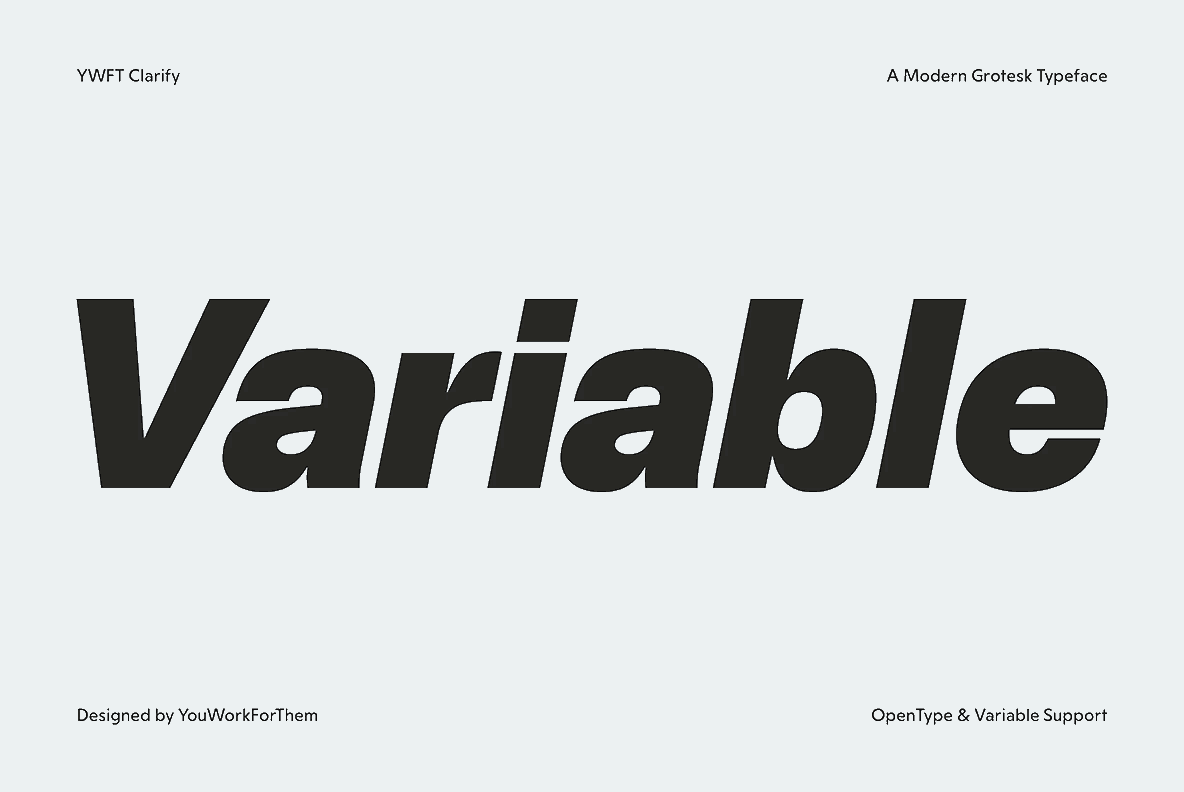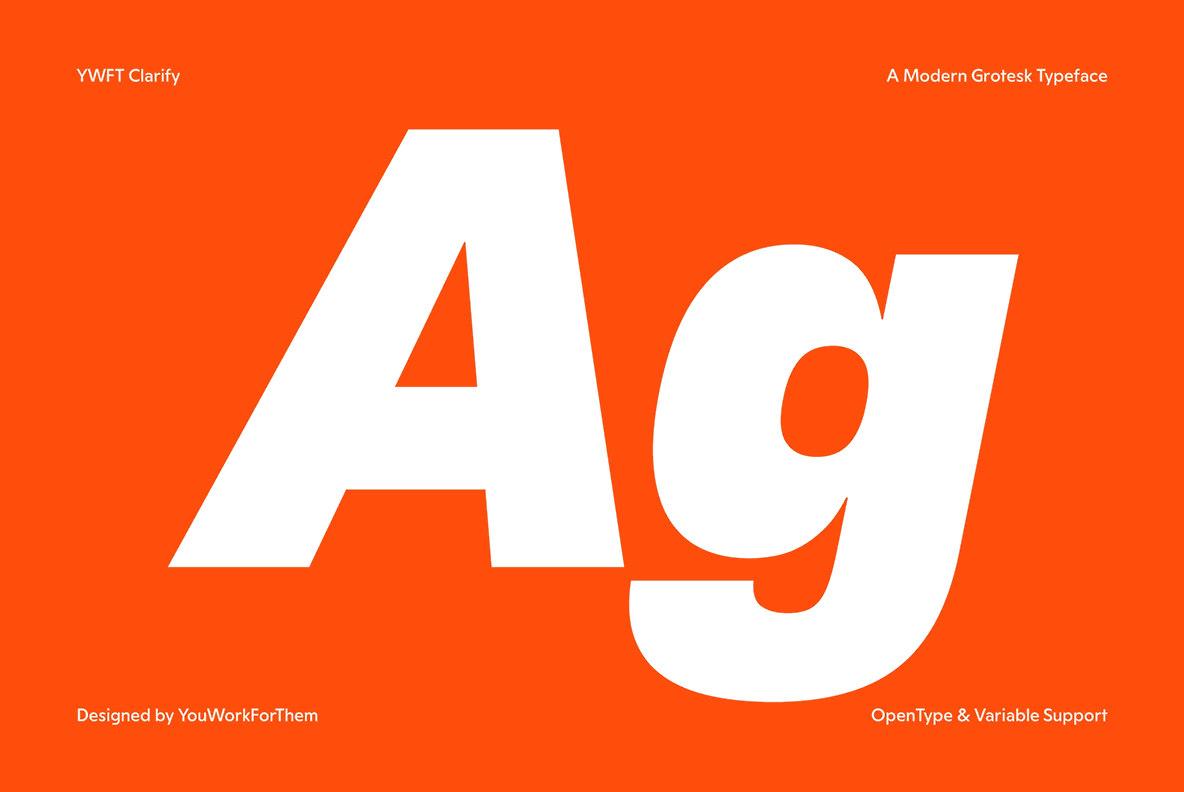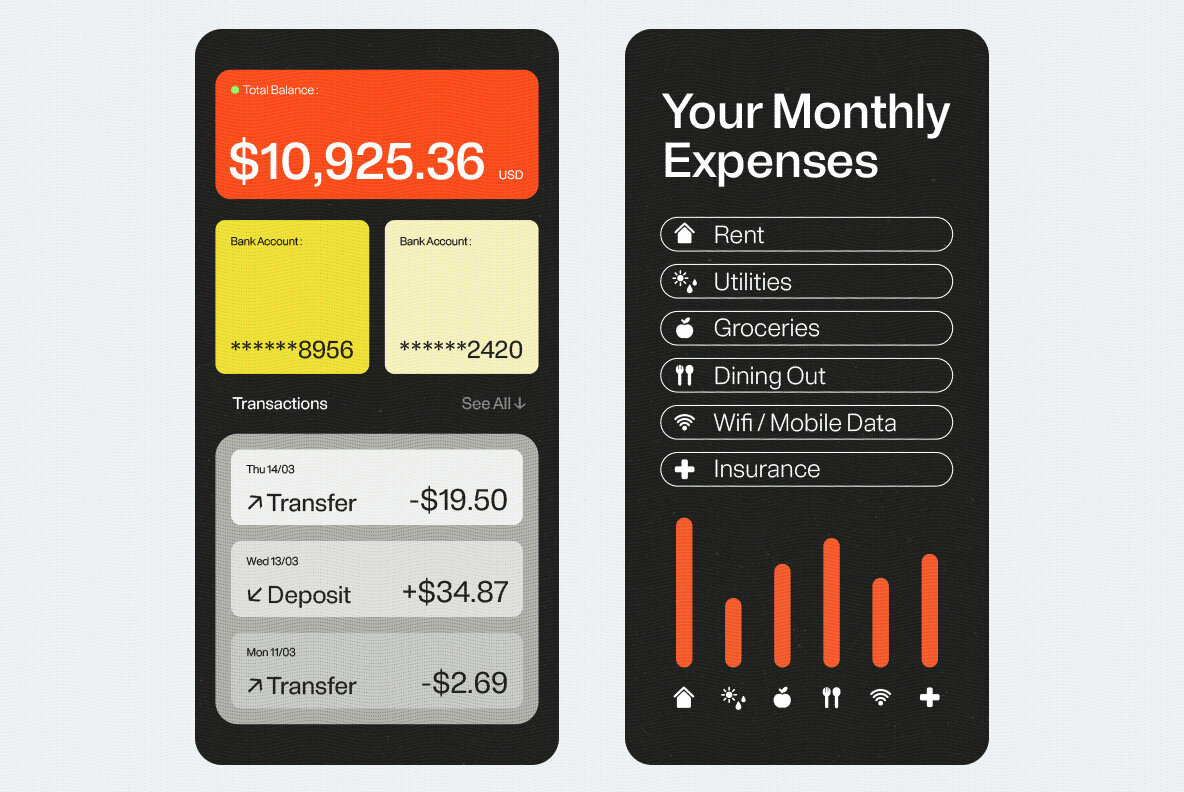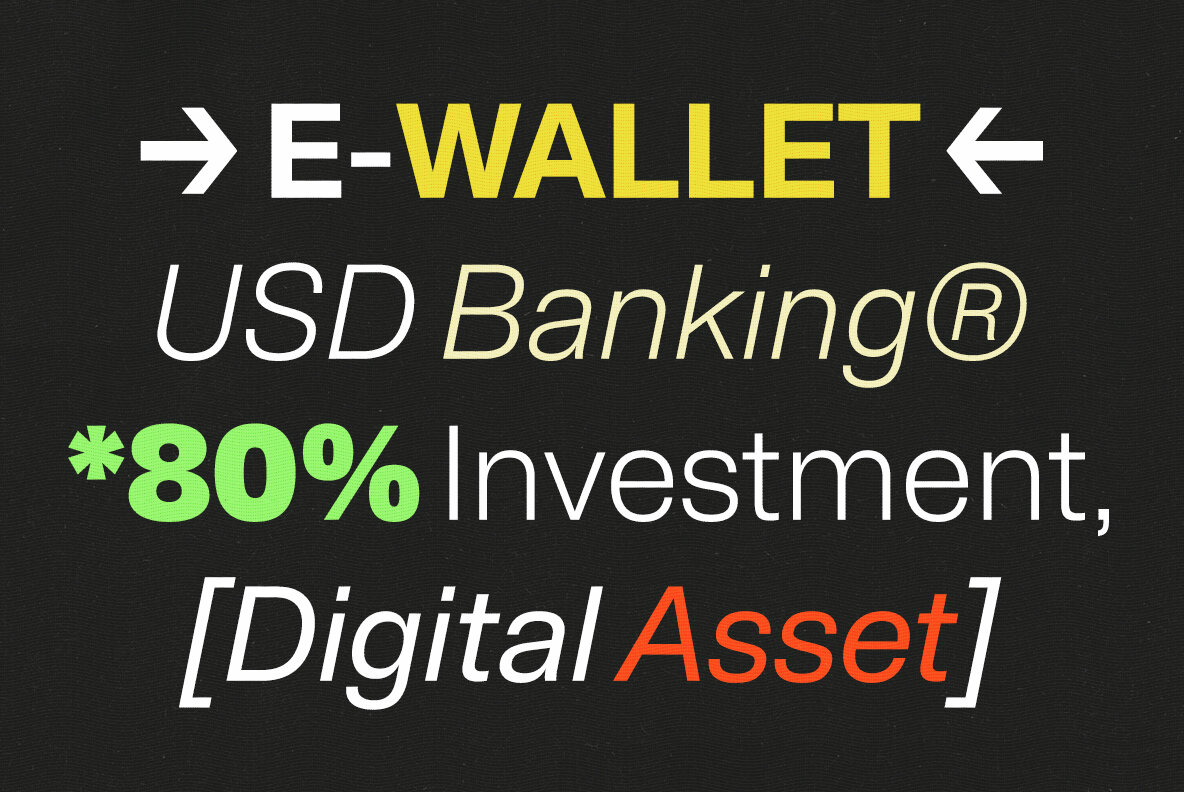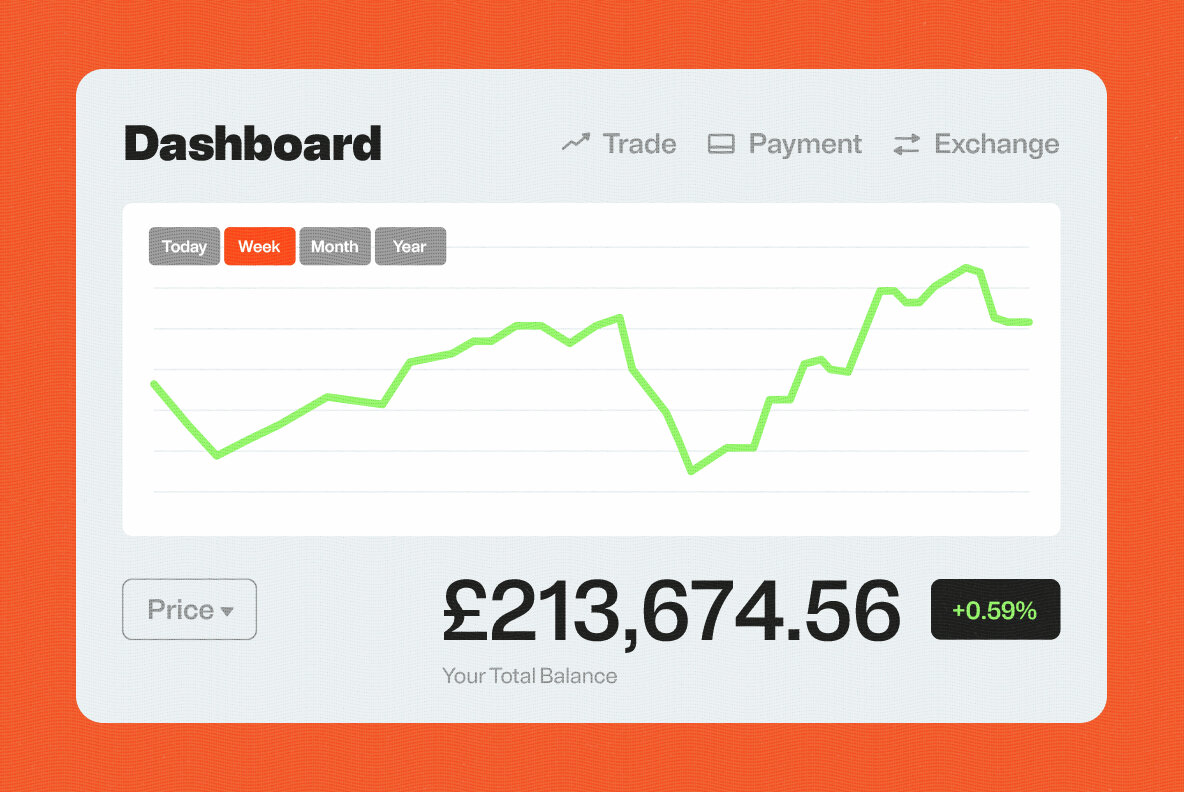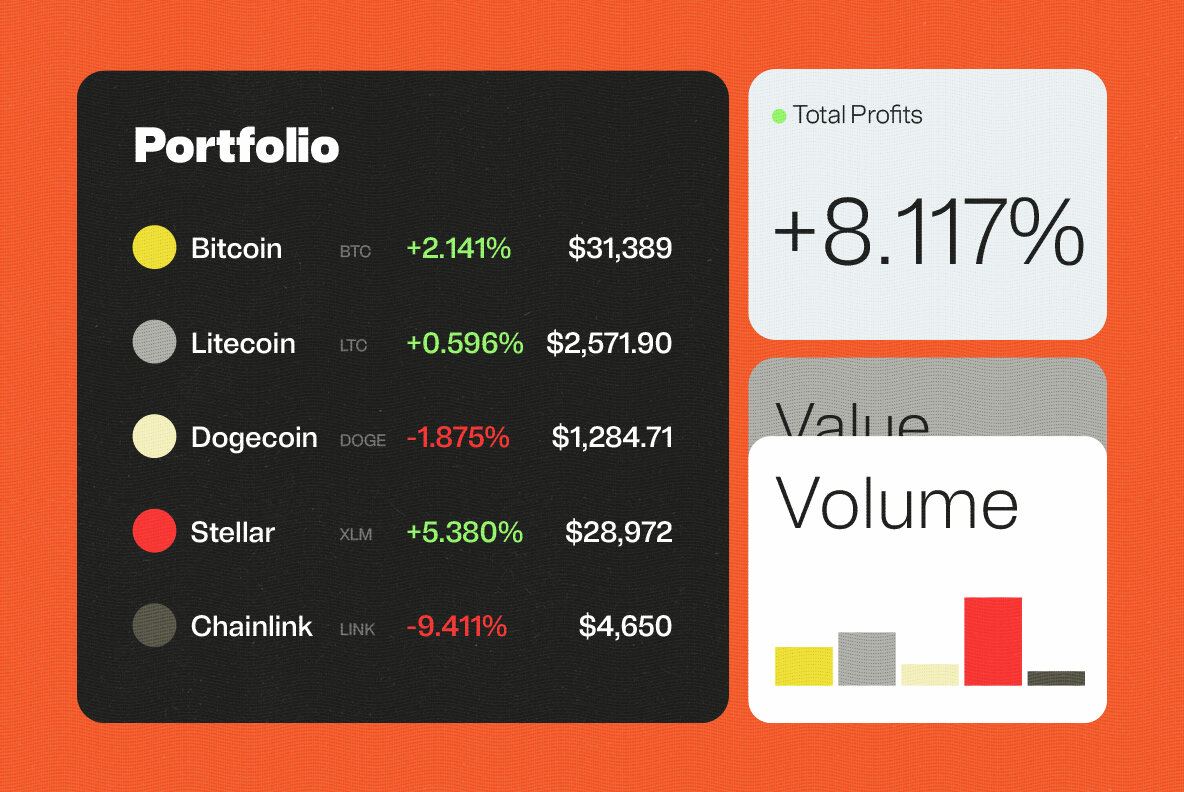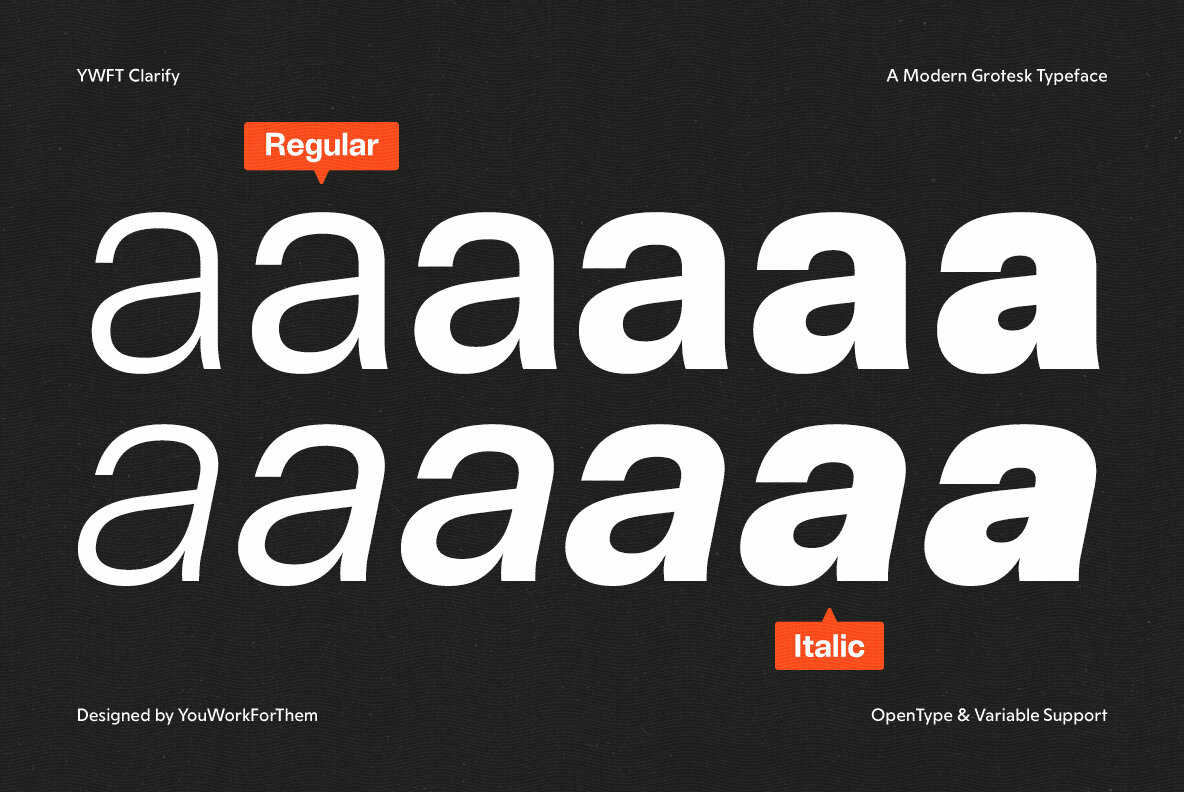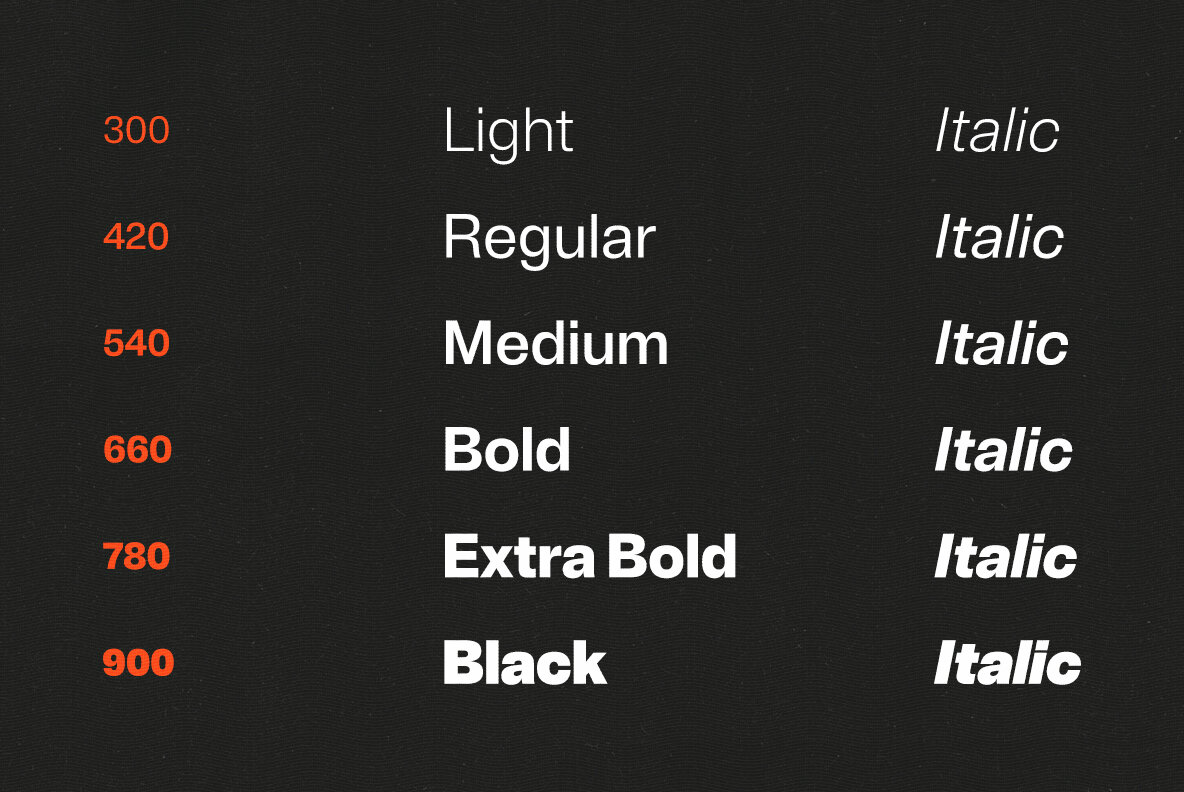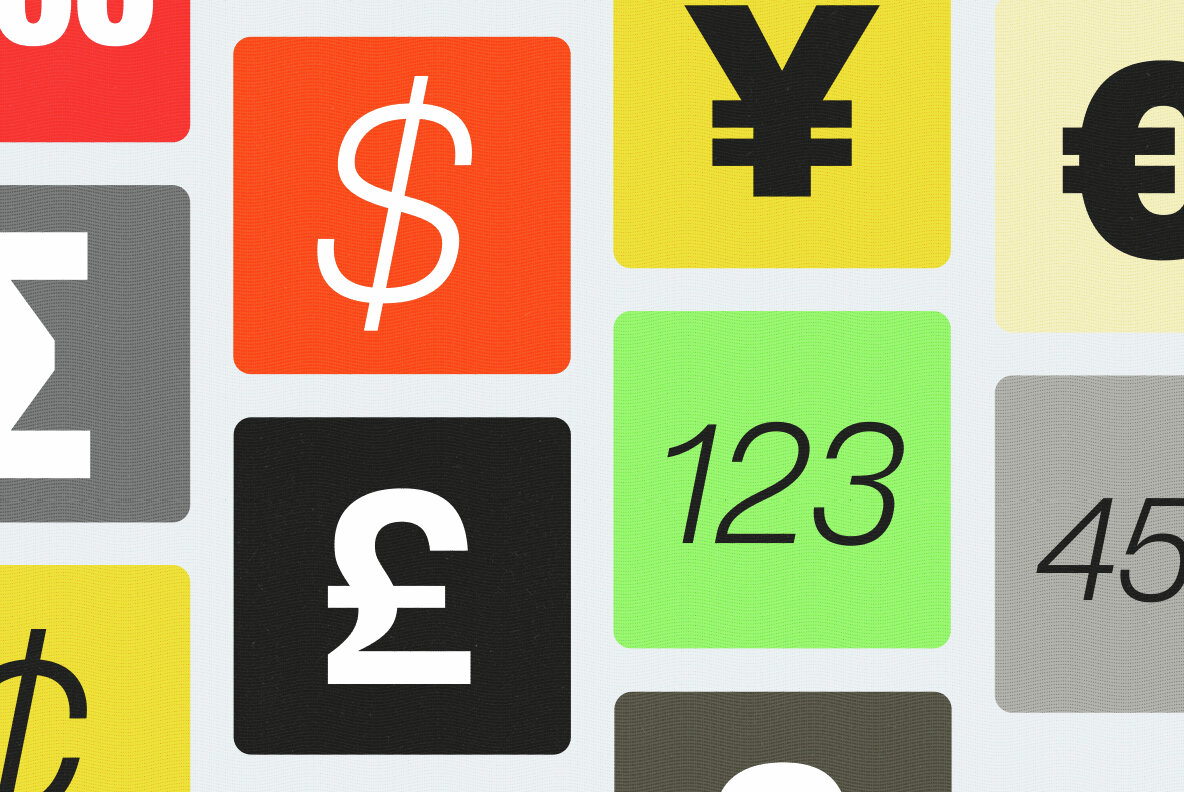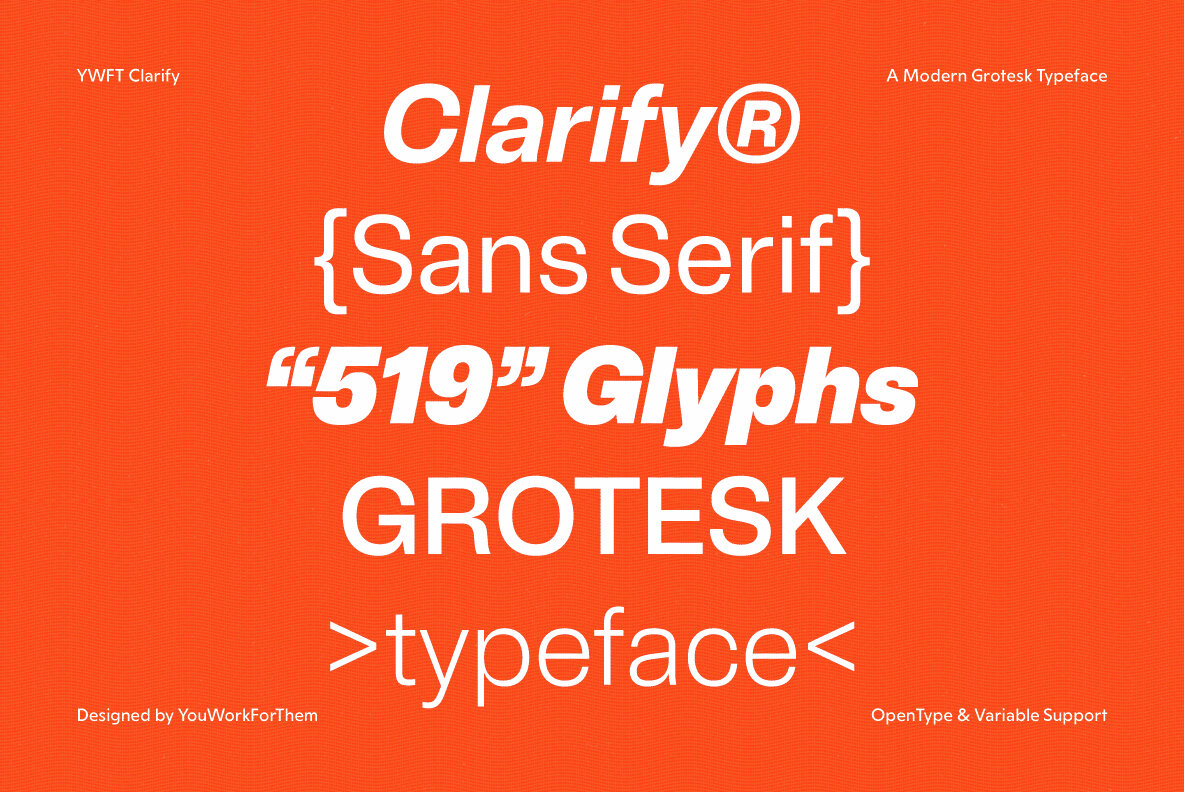
YWFT Clarify Font
Discover YWFT Clarify, the epitome of modern sans serif typefaces. Its sleek grotesk structure is a nod to the classics yet stands as a digital era revolutionary. Designed specifically for crisp on-screen readability, YWFT Clarify shines in mobile applications and financial interfaces, embodying clarity in every curve. With six robust weights from Light to Black, complemented by matching italics, this font offers a spectrum of expression. The variable font option provides seamless transitions in weights, perfect for nuanced web branding where adaptability is key. Clarity and precision are paramount in financial and crypto contexts, and YWFT Clarify delivers. Its character set supports complex data visualizations, ensuring legibility in dashboards and e-wallet applications. We at YouWorkForThem believe in breaking the norm of restrictive subscriptions. YWFT Clarify is a one-time purchase — a long-term investment in your brand's visual language. This font aligns with digital design platforms like Photoshop and Canva, enhancing your creative workflow. With no subscription fees, YWFT Clarify is a cost-effective solution for brands and designers alike. Its affordable licensing makes it accessible for varied projects — design forever with a one-time payment. Available exclusively through YouWorkForThem, YWFT Clarify is the modern designer's answer to a versatile, affordable sans serif — your asset for digital and print, from graphic design to user interfaces. YWFT Clarify — the definitive choice for a clean, smart, and modern sans serif that bridges the gap between time-honored classics and the digital future. Additional products used for slideshow images:YWFT Clarify: A Modern Grotesk for the Digital Age
Precision Engineered for Finance and Crypto